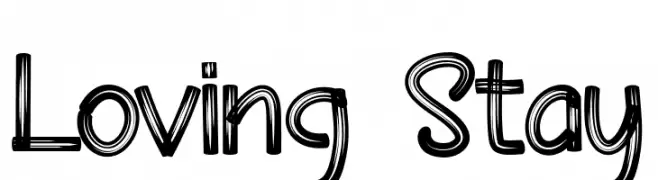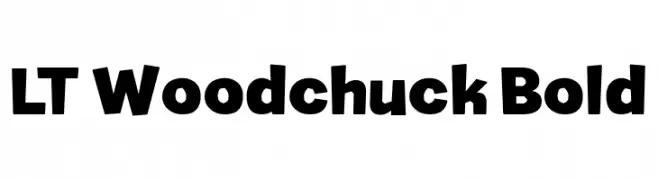
• Love Hue
A decorative font with a distressed, brush-stroke effect for dynamic designs.
• Love Miracle
A cursive, handwritten font with elegant, flowing lines and ornate details.
• Love Moi
• Love Sunday - Personal Use
A playful and whimsical script font with a handwritten style.
• Lovely Kids
A playful, hand-drawn font with bold, rounded characters and a whimsical style.
• Lovely Orange
A modern-vintage font with elegant curves and sharp edges, ideal for sophisticated designs.
• lovemy
A modern, elegant script font with fluid, expressive letterforms.
• Loving Stay
A playful, hand-drawn font with bold, sketch-like outlines.
• LT Woodchuck
A bold, modern sans-serif font with clean, geometric lines.
• LT Woodchuck Bold
A bold, modern font with thick, rounded strokes for a strong visual impact.